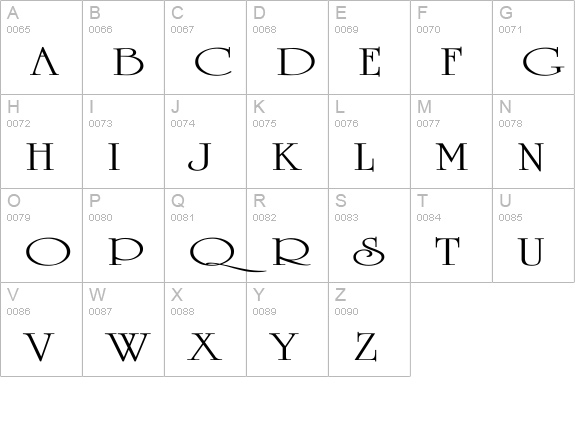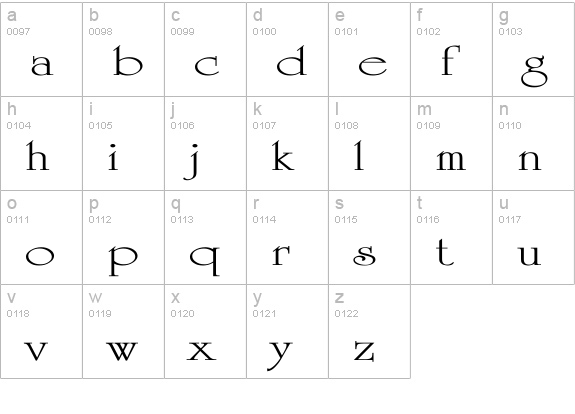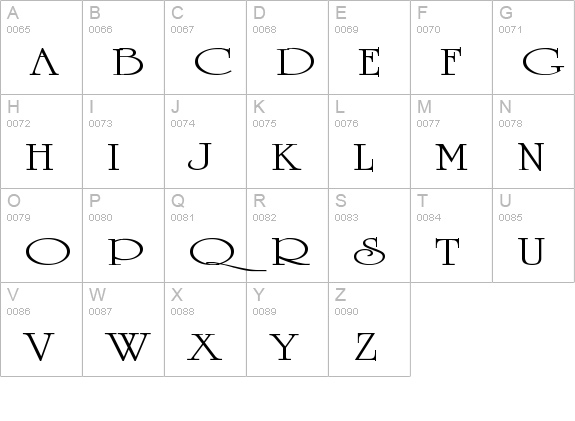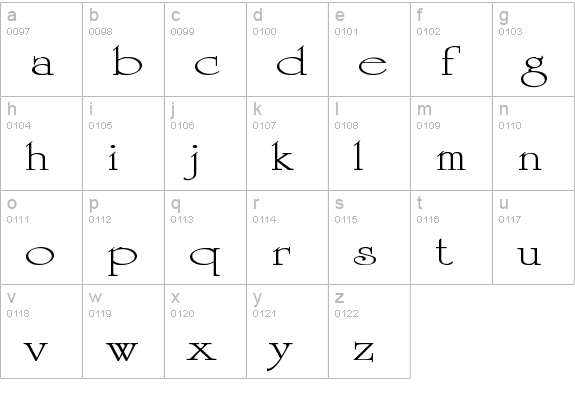
University Ex Font Details
Introducing University Ex, a versatile and dynamic font that embodies the spirit and essence of academic excellence. Designed with meticulous attention to detail, this font is ideal for various educational and scholarly purposes, from university publications to research papers and beyond. With its clean lines and elegant curves, University Ex exudes a sense of professionalism and sophistication, making it the perfect choice for those seeking to elevate their written materials to new heights. Its modern yet timeless design ensures readability and legibility across a wide range of mediums, whether in print or on screen. But what truly sets University Ex apart is its accessibility. This remarkable font is not only visually stunning, but it is also freely available to download at FontsMarket.com. This means that students, educators, and professionals alike can enjoy the benefits of this exceptional font without any cost. So whether you're a student working on a thesis, a professor preparing lecture notes, or a designer creating educational materials, University Ex is here to elevate your work and convey a sense of professionalism and excellence. Don't miss out on this incredible opportunity to enhance your written communication - download University Ex today at FontsMarket.com and experience the power of this remarkable font for yourself.